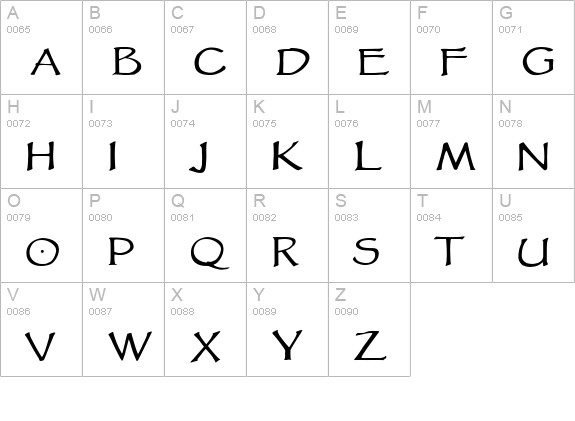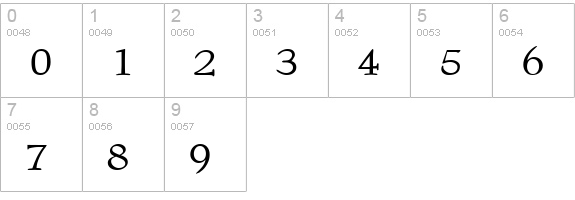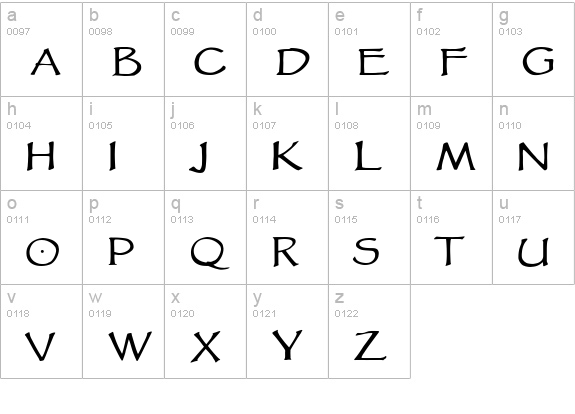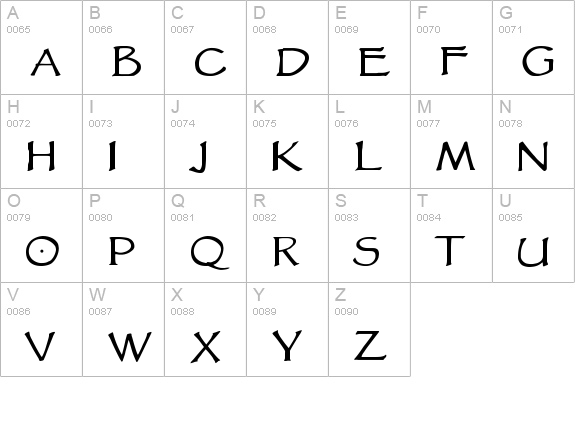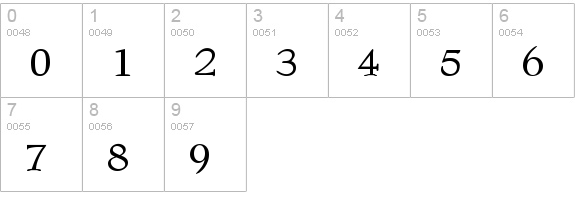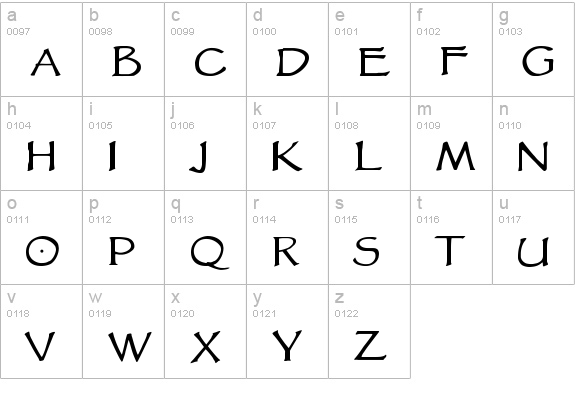
Introducing VTCGoblinHand, a whimsical and mischievous font that will add a touch of playfulness to your projects. This unique typeface captures the essence of a mischievous goblin, with its quirky letterforms and exaggerated curves. VTCGoblinHand is perfect for adding a whimsical twist to any design, whether it be for children's books, party invitations, or even Halloween-themed creations. Its hand-drawn look gives it a personal and organic feel, making it stand out from the crowd. But what makes VTCGoblinHand even better is that it is free! Yes, you heard that right. This font is freely available to download at FontsMarket.com. Now you can unleash your creativity without worrying about breaking the bank. Whether you're a professional designer or a hobbyist, VTCGoblinHand is a must-have addition to your font collection. So go ahead and download VTCGoblinHand today, and let your imagination run wild. Whether you're creating a spooky poster or a whimsical greeting card, this font will bring a touch of magic to your designs. Don't miss out on this fantastic opportunity to add a playful and free font to your toolbox. Head over to FontsMarket.com now and start exploring the world of VTCGoblinHand!